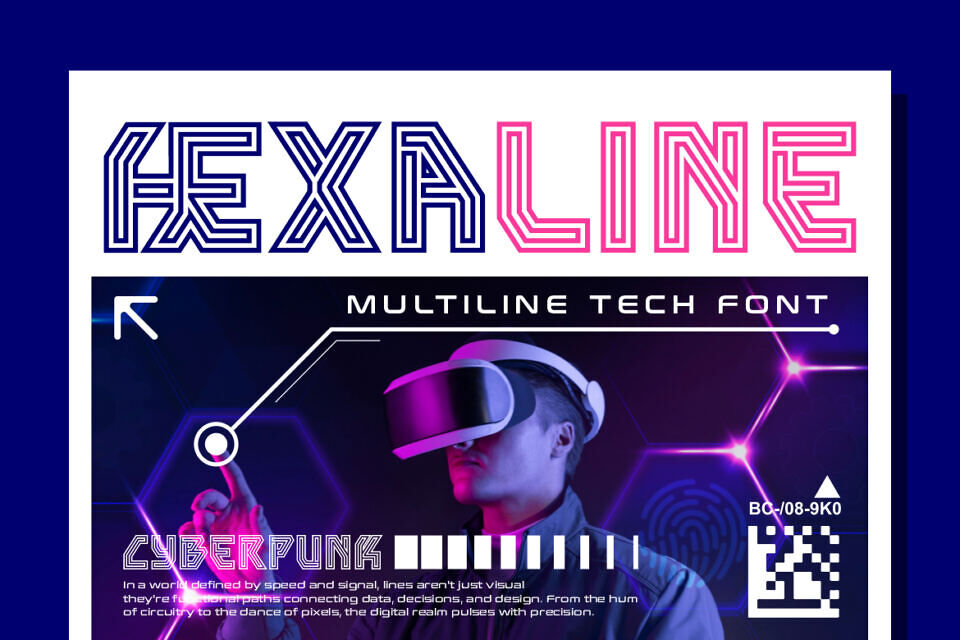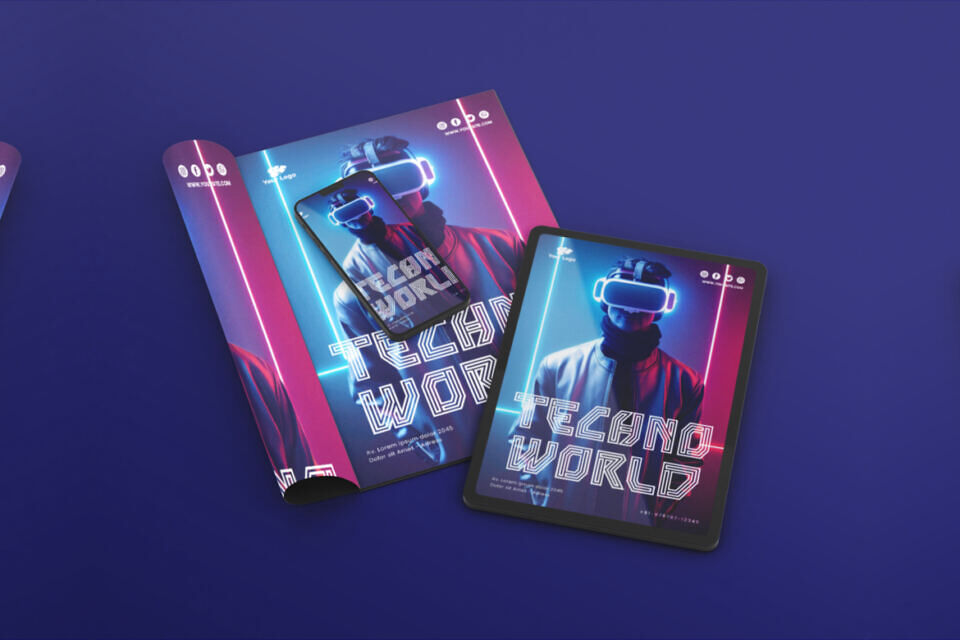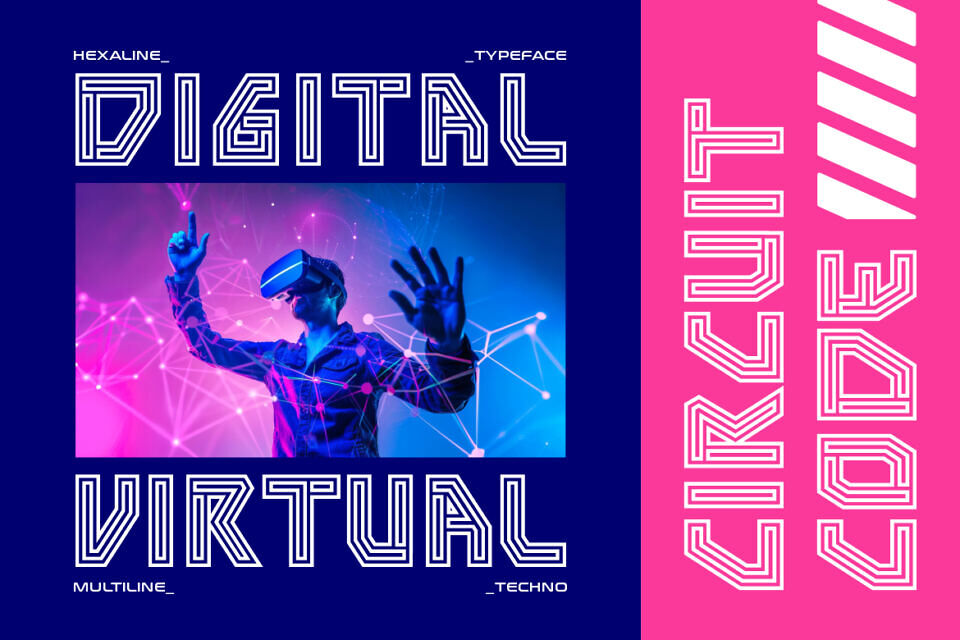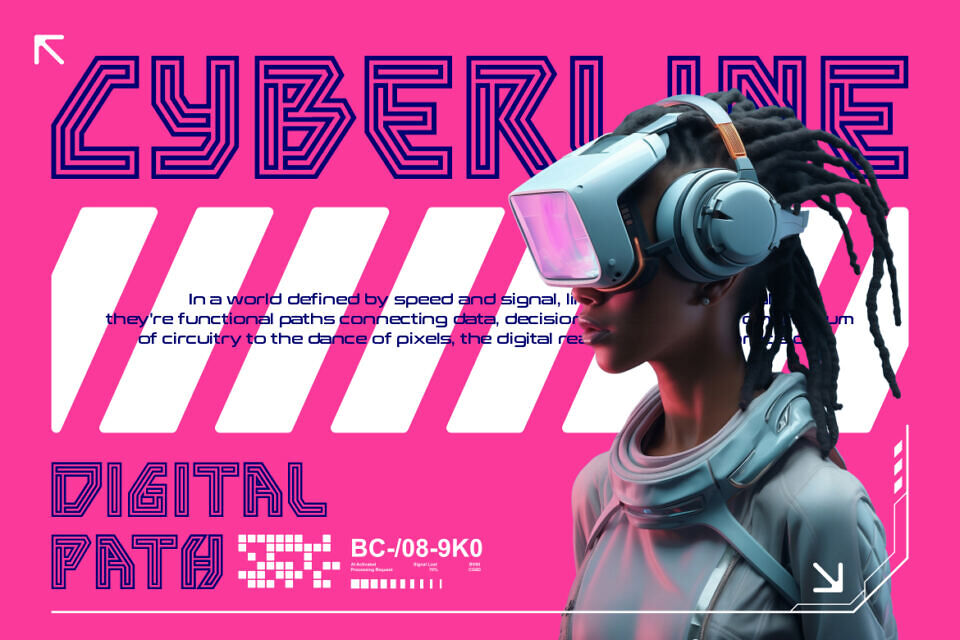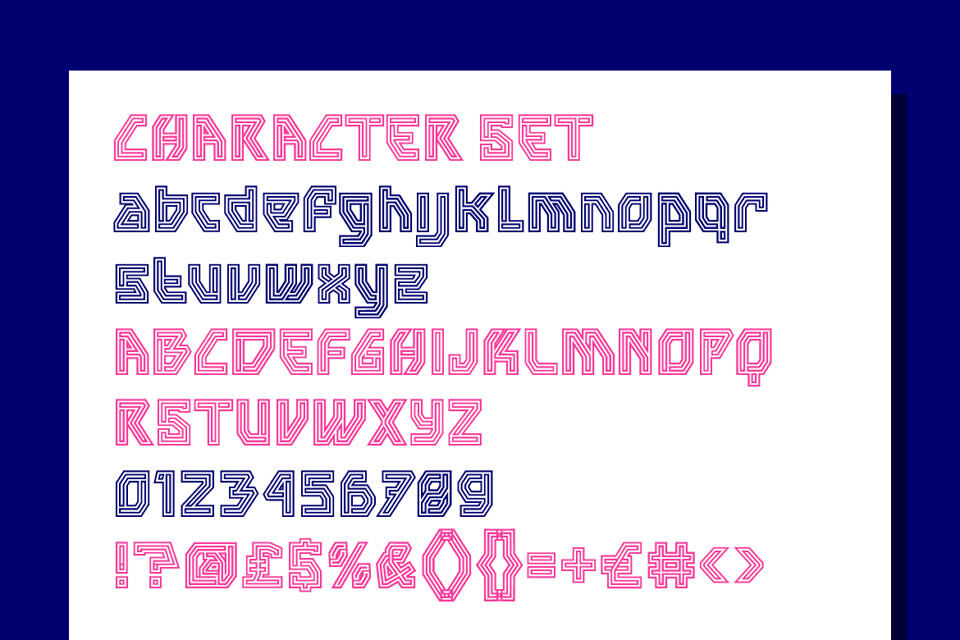
Hexaline Font
Hexaline Multiline is a futuristic typeface designed for projects that demand a modern digital edge. Each letterform is built with clean, geometric paths that create a multi-line effect, giving the font a distinctive circuit-inspired look. Its sharp corners, precise angles, and open letter shapes make it stand out in technology-driven designs. The dual-tone possibilities enhance its neon aesthetic, perfect for glowing effects, holographic themes, and cyberpunk-inspired visuals.
Ideal for logos, branding, posters, packaging, and digital media, Hexaline excels in both print and screen use. It’s a natural fit for sci-fi titles, VR and AR promotions, tech startup identities, and futuristic event posters.